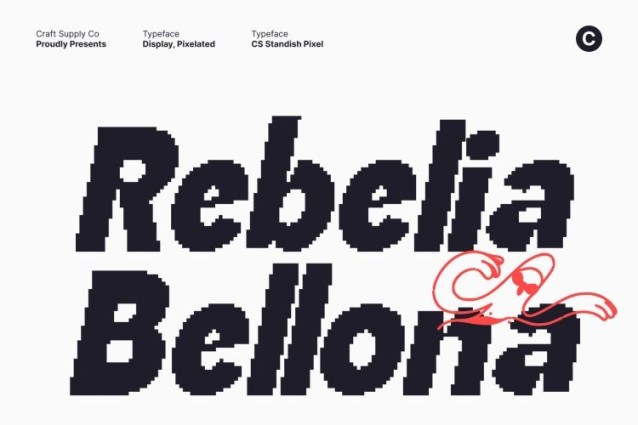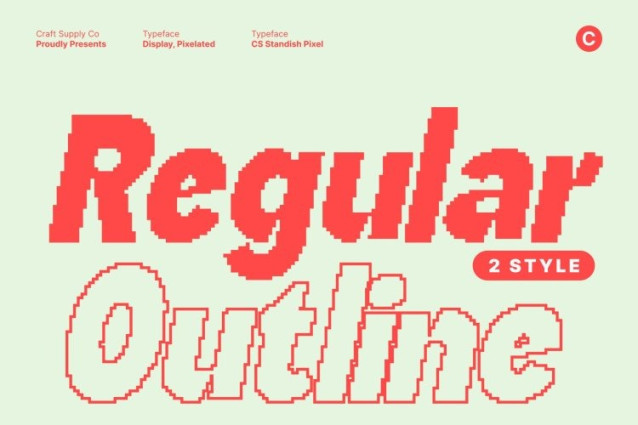
CS Standish Pixel Font
CS Standish Pixel Font This is a modern sans serif font defined by bold, clean, and structured lines enhanced with subtle pixel-inspired detailing. Its contemporary design brings confidence and clarity to any layout, while the pixel treatment adds a crisp digital character. Every curve and stroke balances strength and simplicity with a sharp, modern edge.
Grotesque Influence with Digital Precision
Inspired by classic grotesque typography, this font carries subtle humanist warmth within its strong geometric framework. The fusion of structured forms and pixel nuances creates a distinctive rhythm that feels both timeless and tech-forward. It blends functionality with personality, offering a modern reinterpretation of grotesque style through a digital lens.
Clean Structure for Sharp Visual Impact
With its solid strokes, balanced proportions, and precise spacing, this font delivers maximum readability and impact. The pixel elements enhance its clarity, giving headlines and bold statements a crisp, screen-ready presence while maintaining a refined and professional tone.
Perfect for Modern Branding and Digital Creativity
This font shines in logos, posters, branding systems, UI design, tech visuals, and editorial projects that demand a sleek, contemporary look. Its modern sans serif foundation combined with a subtle pixel edge makes it adaptable across creative and professional contexts perfect for building brands that feel sharp, confident, and digitally inspired.